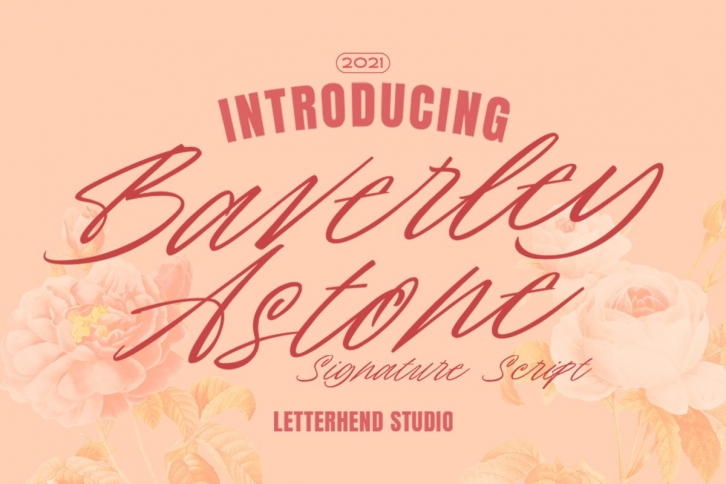
Baverley Astone FONT Download
Introducing, Baverley Astone Signature Script - an authentic hand writing with natural signature style. This type of font perfectly made to be applied especially in logo, and the other various formal forms such as invitations, labels, logos, magazines, books, greeting / wedding cards, packaging, fashion, make up, stationery, novels, labels or any type of advertising purpose.
• uppercase & lowercase
• numbers and punctuation
• multilingual
• alternates and ligatures
• swashes